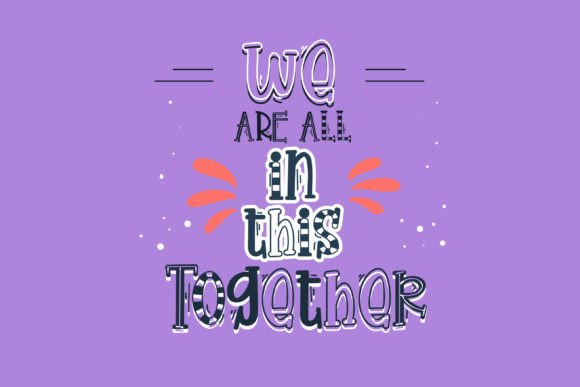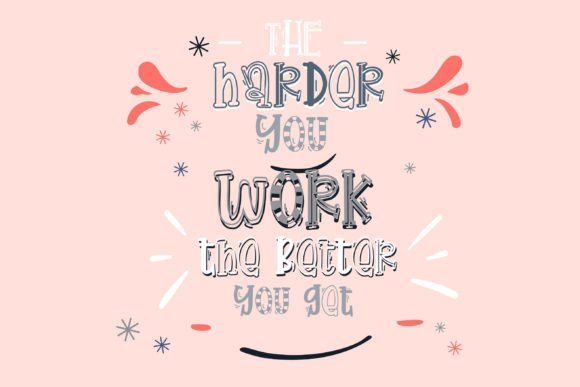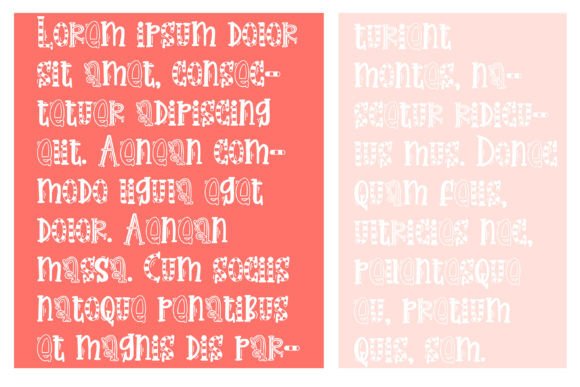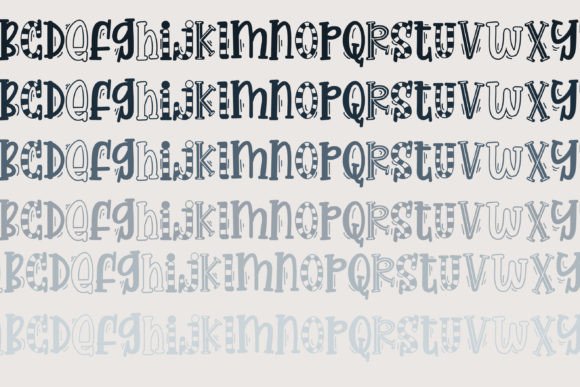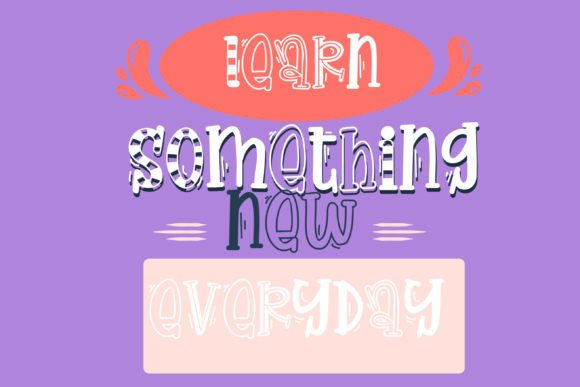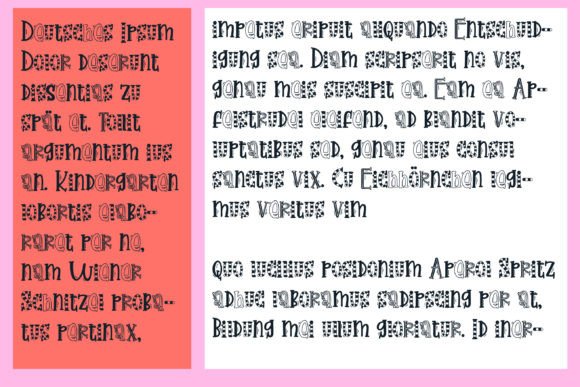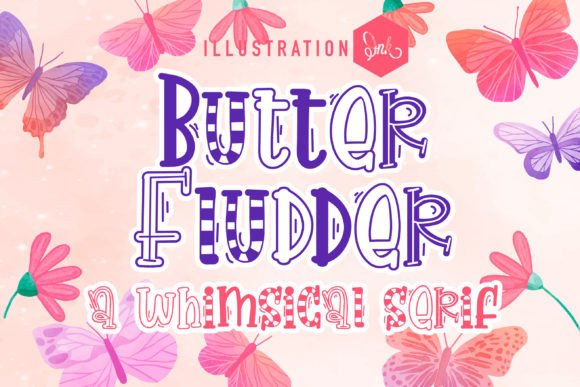
Introducing Butter Fludder Font: The Playful and Quirky Display Font
Are you looking for a font that can add a touch of whimsy and charm to your design projects? Look no further than Butter Fludder Font! This playful and quirky display font is perfect for designers and crafters who want to bring a sense of joy and creativity to their work. In this article, we’ll take a closer look at the features and benefits of Butter Fludder Font, and explore how it can be used to create fun-loving and vibrant designs.
The Unique Characteristics of Butter Fludder Font
Butter Fludder Font is a truly one-of-a-kind font that stands out from the crowd. Its irregular letterforms and joyful bounce give it a playful and carefree feel that’s sure to capture the attention of your audience. The font’s quirky design makes it perfect for use in a variety of design projects, from greeting cards and children’s books to posters and social media graphics.
Bringing Happiness and Creativity to Your Designs
One of the key benefits of Butter Fludder Font is its ability to add a splash of happiness and creativity to any design project. The font’s playful design makes it perfect for use in projects where you want to convey a sense of fun and whimsy. Whether you’re designing a greeting card for a child’s birthday or creating a children’s book, Butter Fludder Font is sure to bring a smile to your audience’s face.
Perfect for Fun-Loving and Vibrant Designs
Butter Fludder Font is perfect for designers and crafters who want to create fun-loving and vibrant designs. The font’s quirky design makes it perfect for use in projects where you want to add a touch of personality and whimsy. From playful posters and social media graphics to fun and colorful craft projects, Butter Fludder Font is the perfect choice.
Using Butter Fludder Font in Your Design Projects
So, how can you use Butter Fludder Font in your design projects? Here are a few ideas to get you started:
- Greeting Cards: Use Butter Fludder Font to create fun and playful greeting cards for birthdays, holidays, and other special occasions.
- Children’s Books: Add a touch of whimsy and charm to your children’s books with Butter Fludder Font.
- Posters and Flyers: Use Butter Fludder Font to create eye-catching posters and flyers that are sure to grab attention.
- Social Media Graphics: Add a touch of personality and whimsy to your social media graphics with Butter Fludder Font.
- Craft Projects: Use Butter Fludder Font to add a touch of fun and creativity to your craft projects, such as handmade cards and gift tags.
Tips for Getting the Most Out of Butter Fludder Font
Here are a few tips for getting the most out of Butter Fludder Font:
- Use it sparingly: While Butter Fludder Font is playful and fun, it can be overwhelming if used too much. Use it sparingly to add a touch of whimsy and charm to your designs.
- Pair it with other fonts: Butter Fludder Font pairs well with other fonts, such as sans-serif fonts and script fonts. Experiment with different font combinations to find the perfect look for your design.
- Experiment with colors: Butter Fludder Font looks great in a variety of colors, from bright and bold to pastel and soft. Experiment with different colors to find the perfect look for your design.
In conclusion, Butter Fludder Font is a playful and quirky display font that’s perfect for designers and crafters who want to add a touch of whimsy and charm to their design projects. With its irregular letterforms and joyful bounce, this font brings a delightful touch to any design project. Whether you’re designing a greeting card, children’s book, or social media graphic, Butter Fludder Font is sure to bring a splash of happiness and creativity to your work.